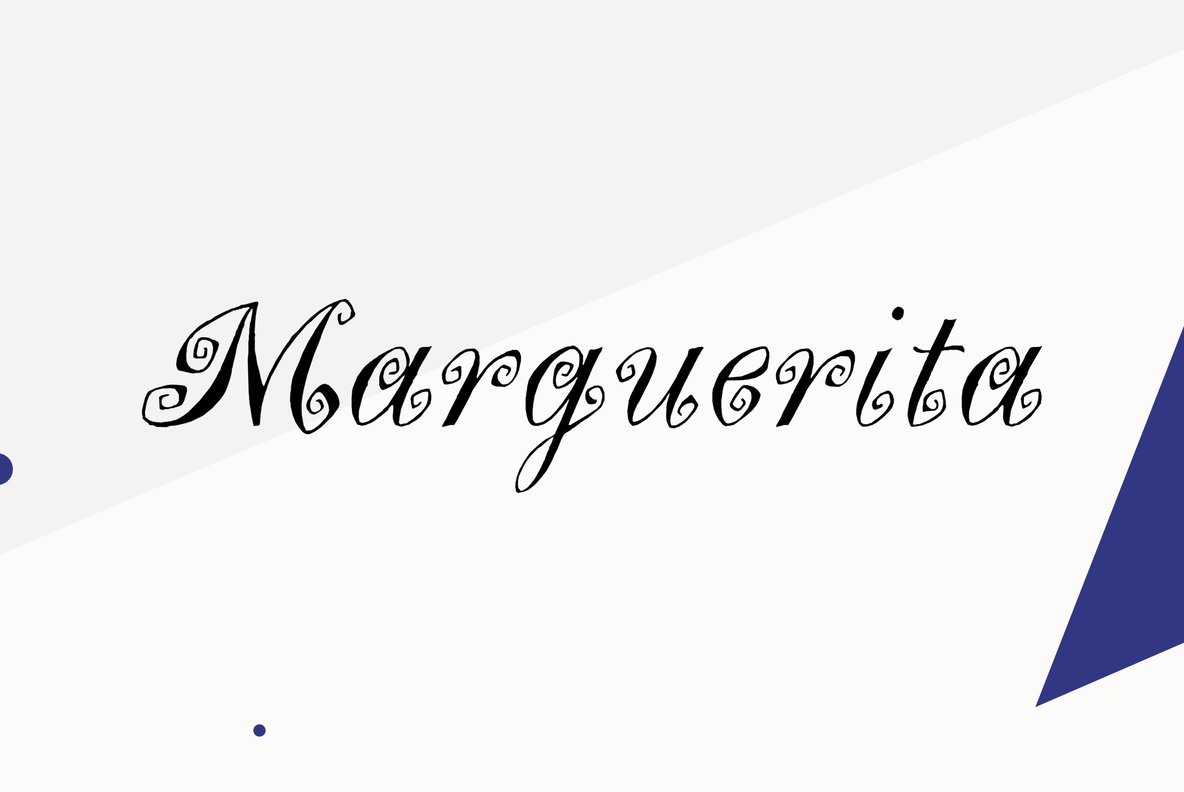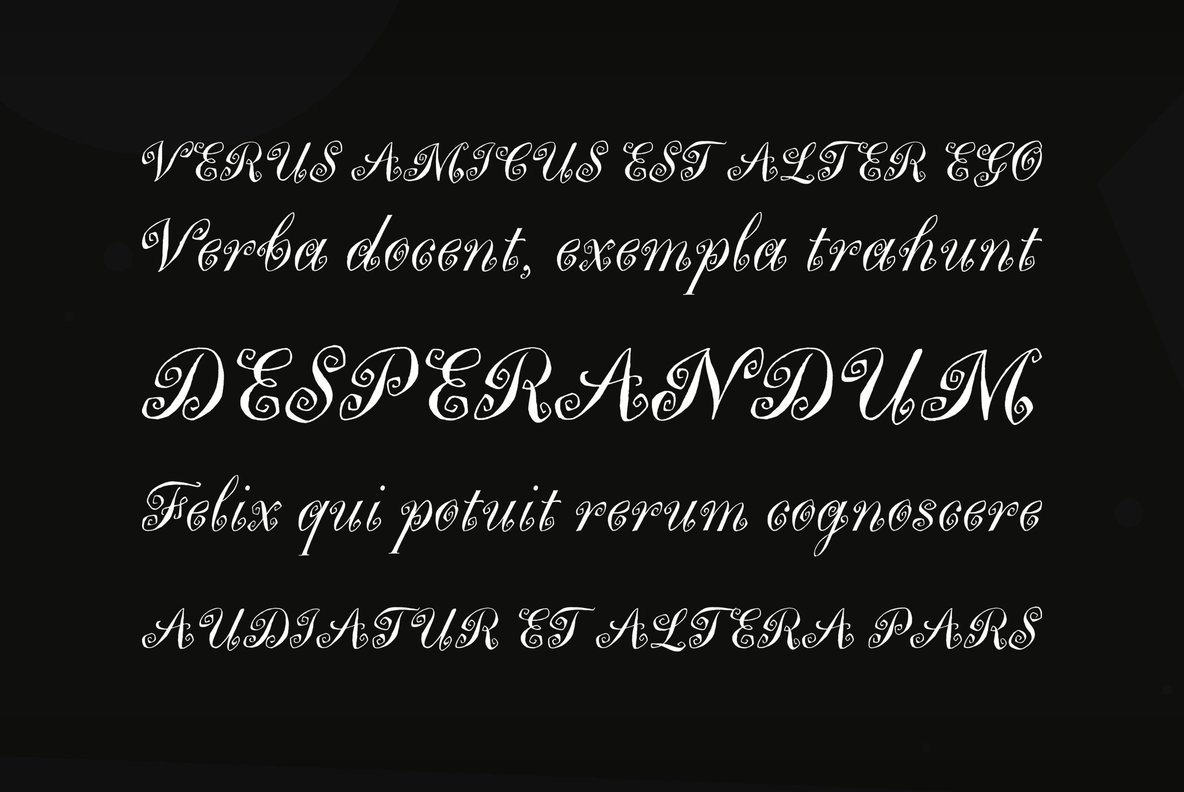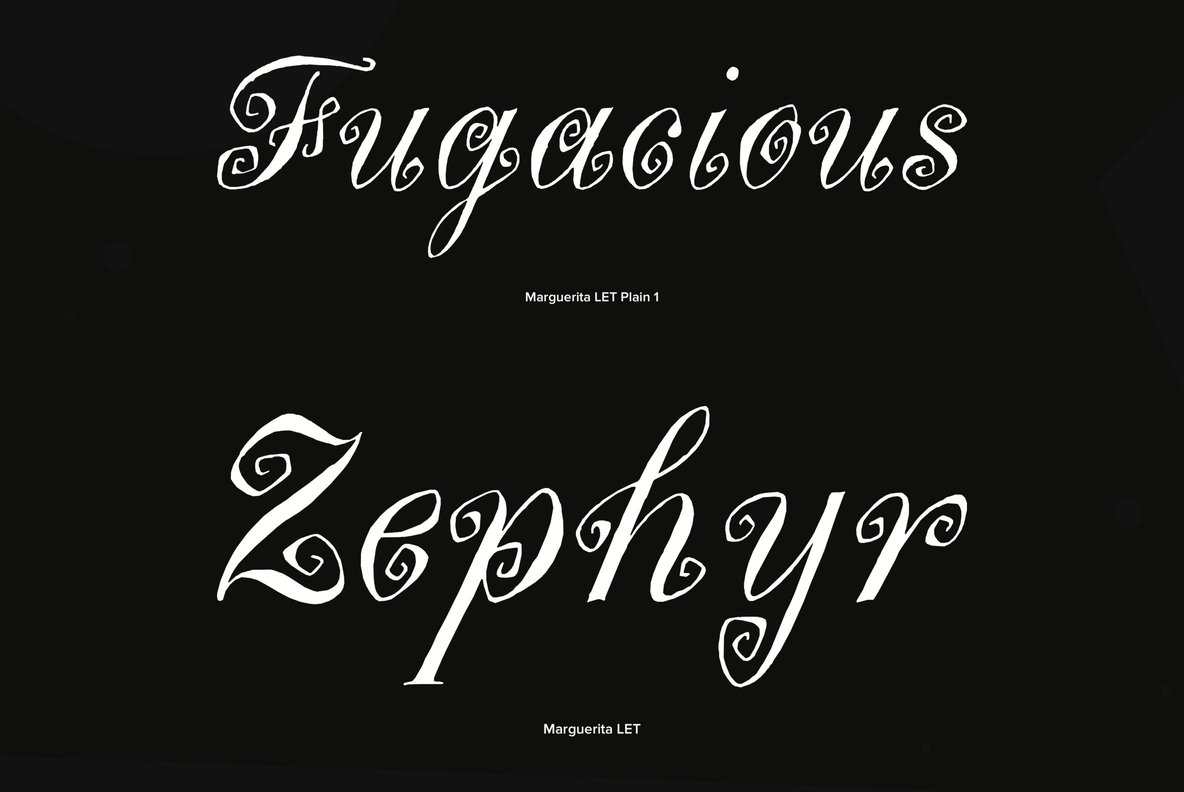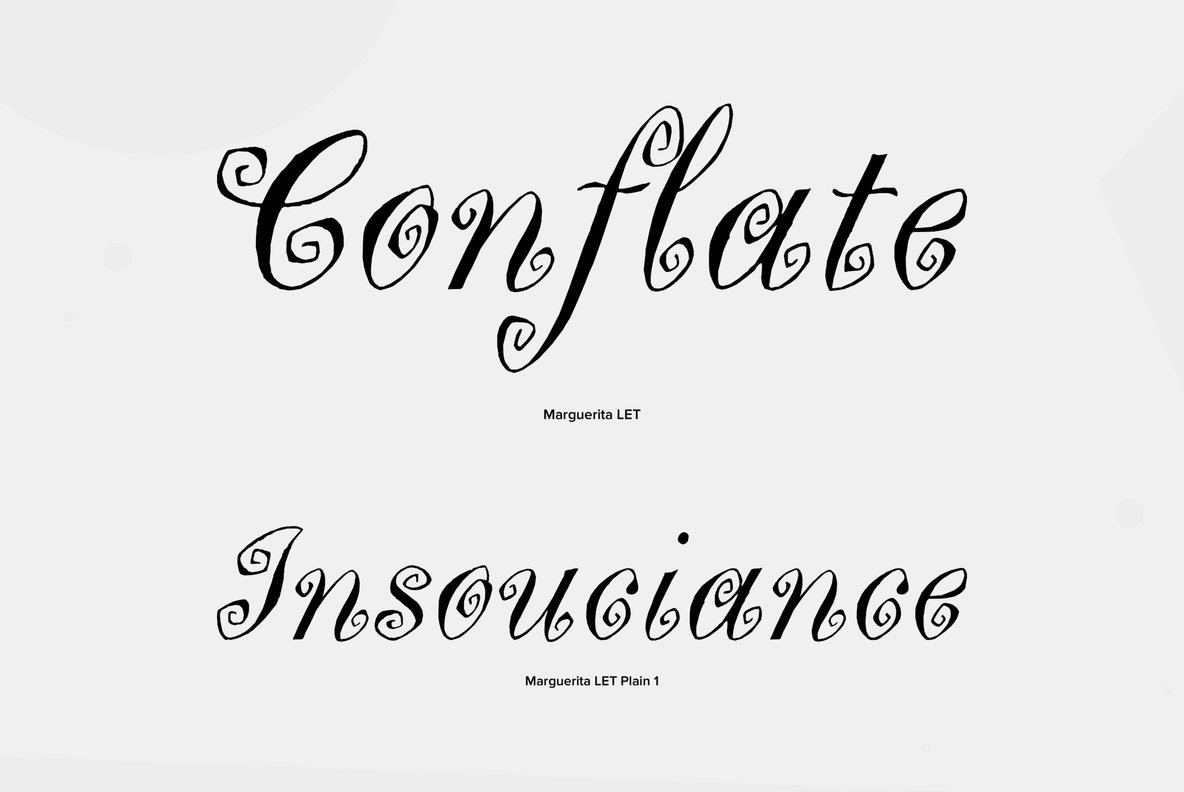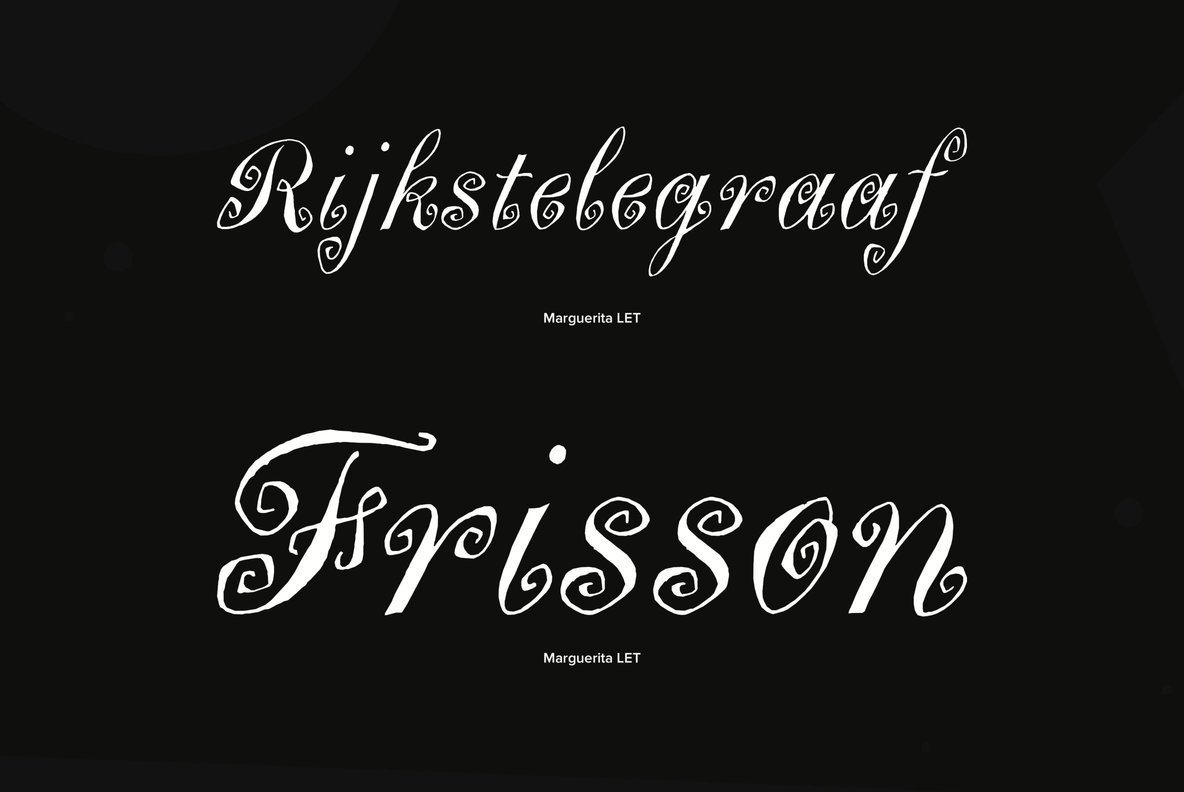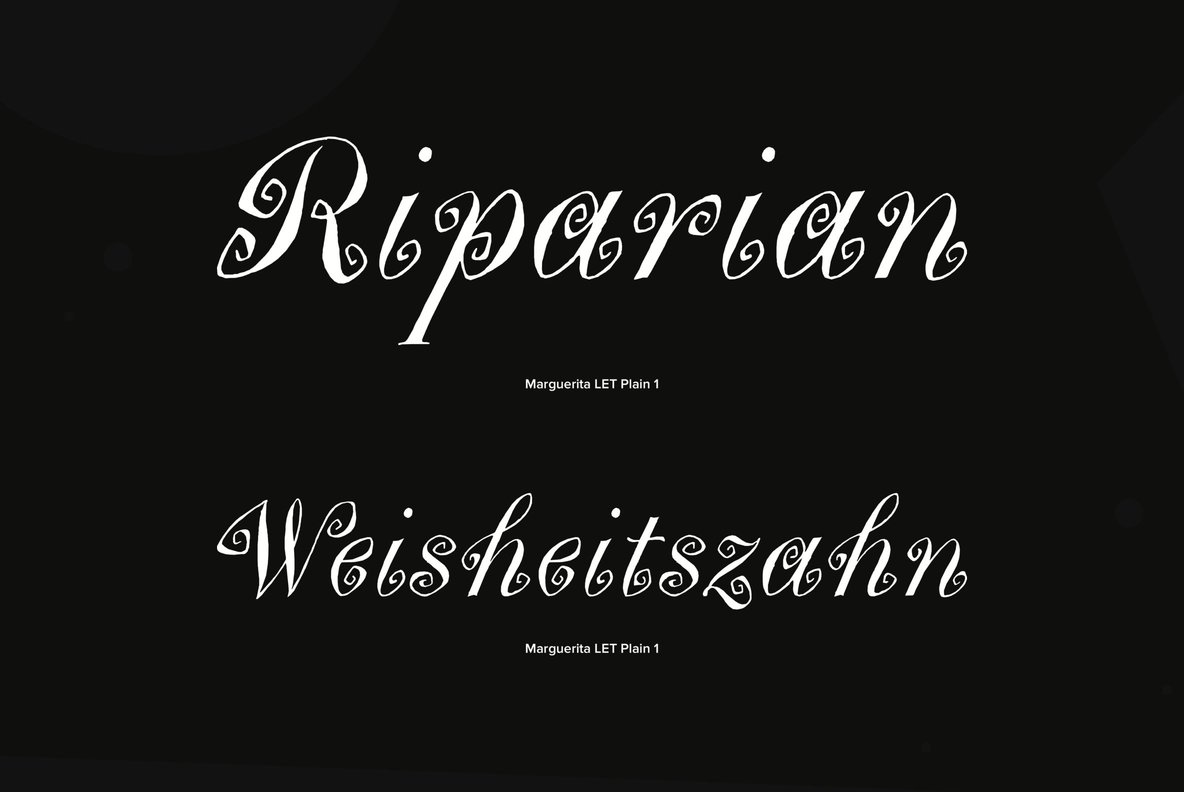
Marguerita
The newest styles in display type inspired designer David Quay to create this pseudo-latin / 1750's concept based on a copperplate script. The capitals are designed for initialling purposes only. Marguerita is a perfect choice when a merry, light-hearted effect is required.